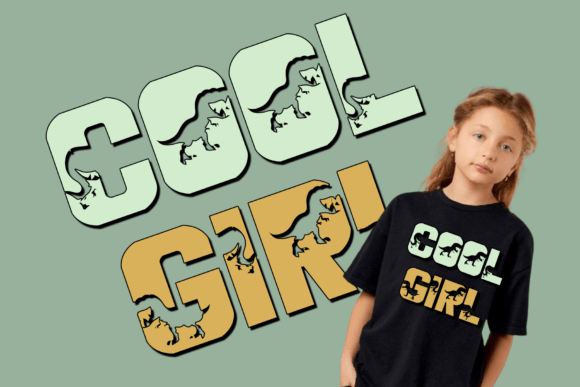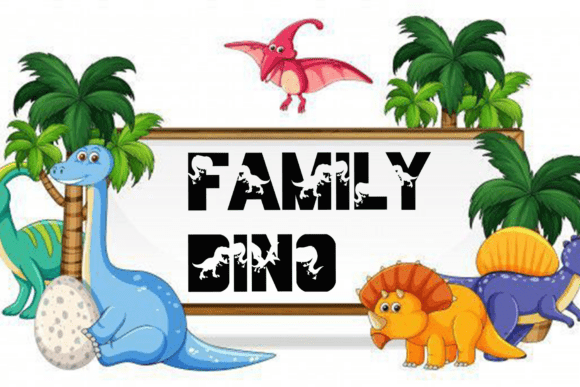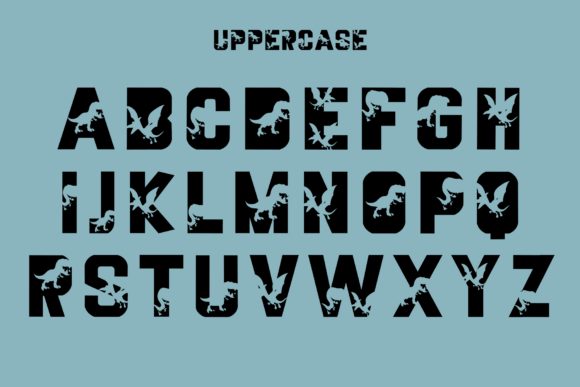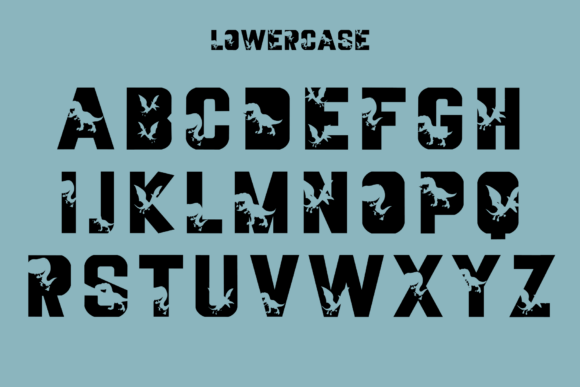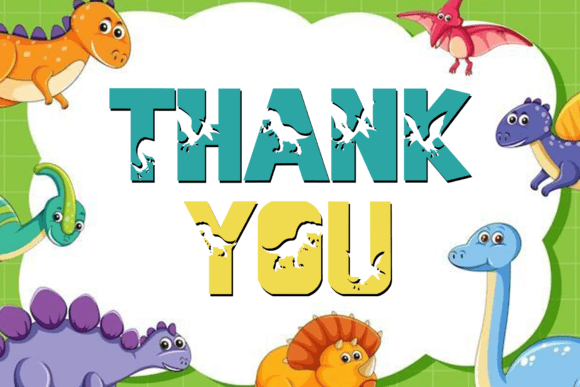
Dino Roar Font: The Ultimate Choice for Friendly and Fun Designs
Are you tired of using the same old fonts for your designs? Look no further than the Dino Roar font, a childish and easy-to-read display font that’s perfect for conveying friendliness and approachability. Whether you’re a designer, crafter, or simply someone who loves to create, this font is sure to become your new go-to for all your design needs.
The Characteristics of Dino Roar Font
Dino Roar font is a unique and playful font that’s designed to bring a smile to people’s faces. Its childish and innocent appeal makes it perfect for designs that require a friendly and approachable tone. The font is highly legible, even at large sizes, making it ideal for use in headings, titles, and other display text.
One of the standout features of Dino Roar font is its versatility. It’s a font that can be used for a wide range of design projects, from digital designs and presentations to crafts and greeting cards. Whether you’re creating something for personal use or for a client, this font is sure to impress.
Why Designers Love Dino Roar Font
Designers love the Dino Roar font for its unique and playful aesthetic. It’s a font that can add a touch of whimsy and fun to any design, making it perfect for projects that require a bit of personality. The font is also highly customizable, allowing designers to experiment with different colors, textures, and effects to create a truly unique look.
Another reason designers love the Dino Roar font is its ease of use. The font is highly legible and easy to read, making it perfect for use in body text as well as headings. It’s also a font that’s easy to pair with other fonts, allowing designers to create a cohesive and visually appealing design.
Why Crafters Love Dino Roar Font
Crafters love the Dino Roar font for its playful and childish appeal. It’s a font that’s perfect for use in scrapbooking, card making, and other paper crafts. The font is also great for use in DIY projects, such as signs, banners, and other decorative items.
One of the reasons crafters love the Dino Roar font is its ability to add a personal touch to their projects. The font is perfect for use in journaling and other hand-written elements, adding a touch of personality and whimsy to any project.
Tips for Using Dino Roar Font
Here are a few tips for using the Dino Roar font in your designs:
- Use it for headings and titles: The Dino Roar font is perfect for use in headings and titles, where its playful and childish appeal can really shine.
- Pair it with other fonts: The Dino Roar font pairs well with a wide range of other fonts, from serif and sans serif fonts to script and decorative fonts.
- Experiment with colors and textures: The Dino Roar font looks great in a wide range of colors and textures, from bright and bold to pastel and subtle.
- Use it for digital and print designs: The Dino Roar font is perfect for use in both digital and print designs, from social media graphics and presentations to crafts and greeting cards.
In conclusion, the Dino Roar font is a versatile and playful font that’s perfect for designers, crafters, and anyone who loves to create. Its childish and easy-to-read design makes it perfect for conveying friendliness and approachability, while its highly legible and customizable design makes it perfect for use in a wide range of design projects. Whether you’re creating something for personal use or for a client, the Dino Roar font is sure to become your new go-to font.